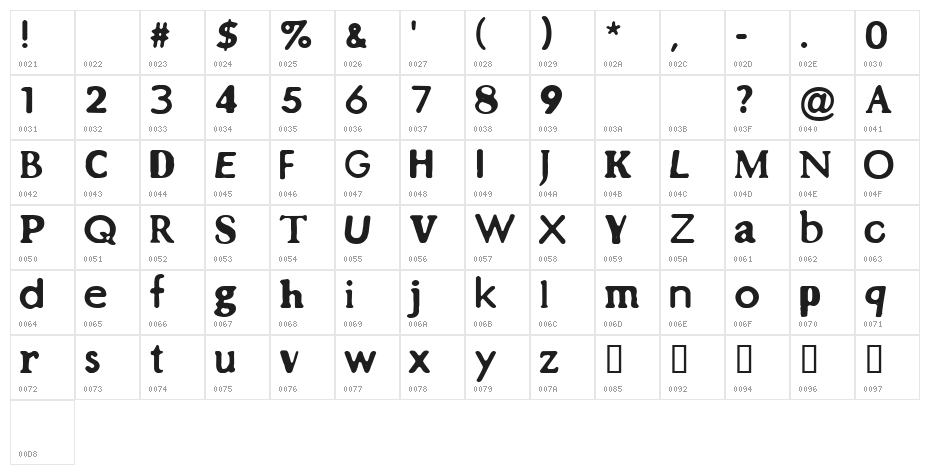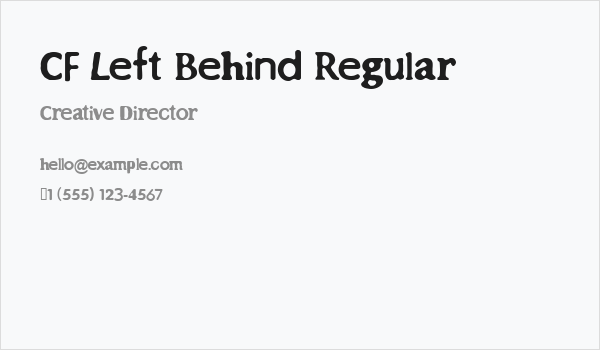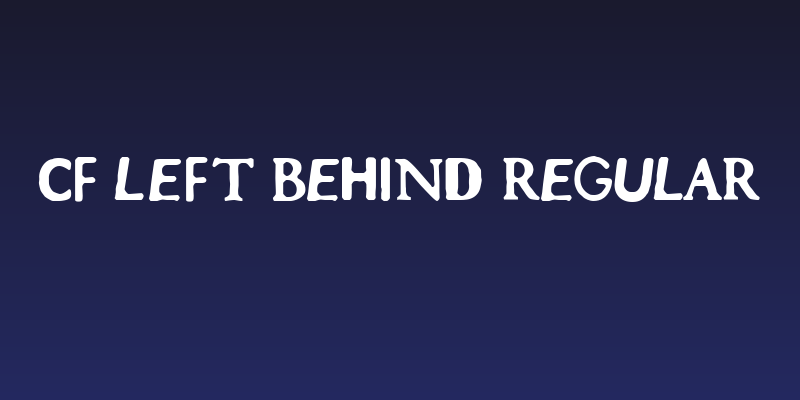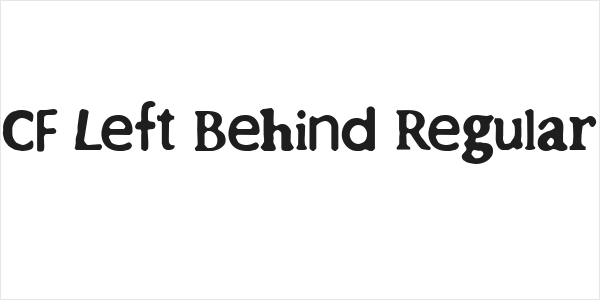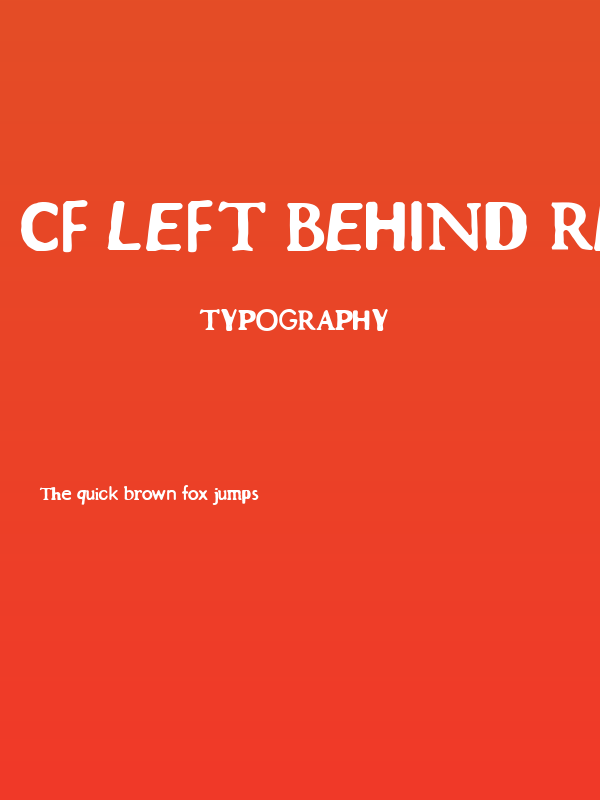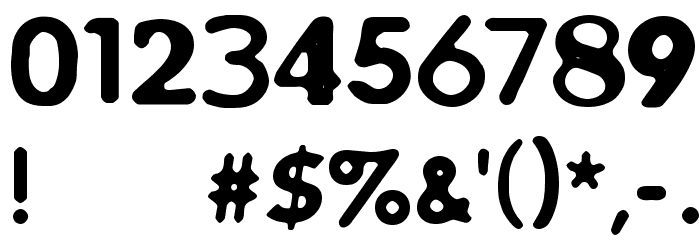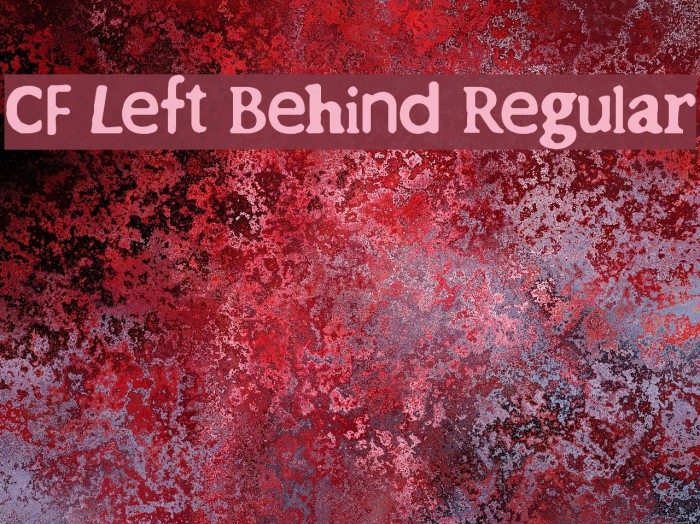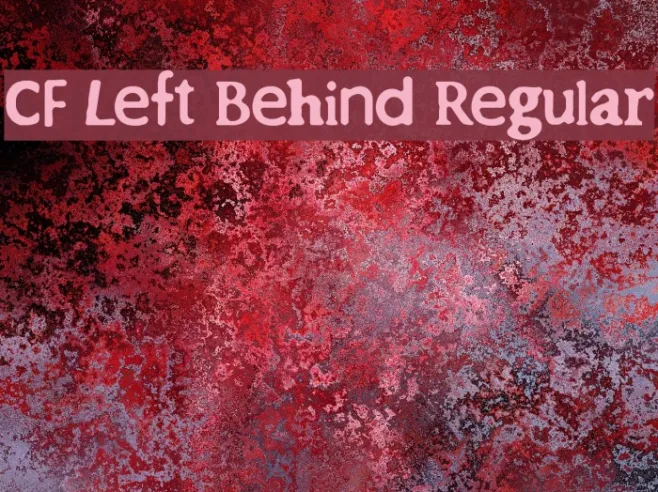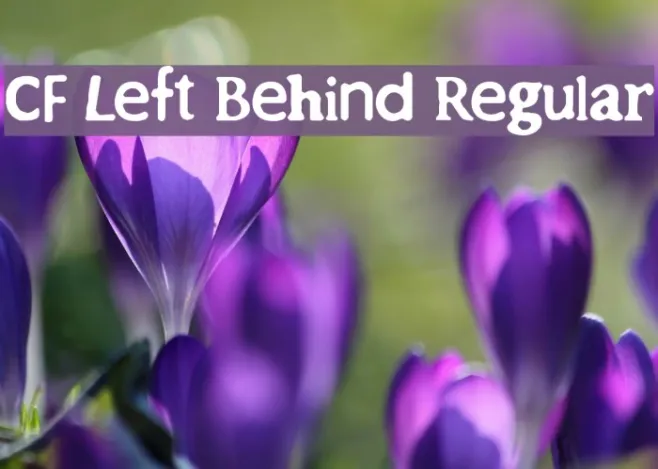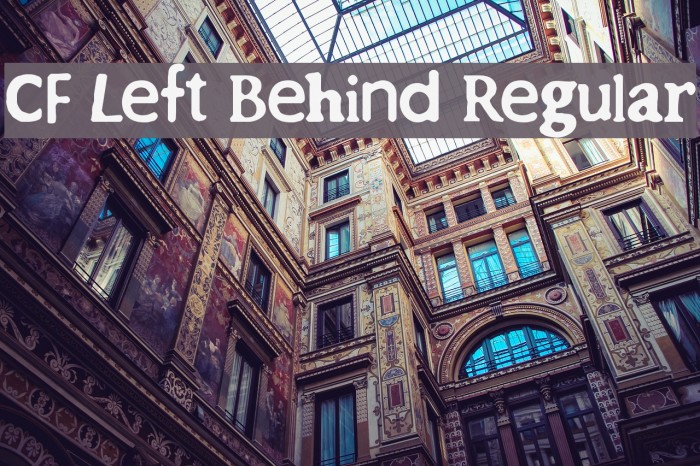
CF Left Behind Regular Font
CF Left Behind Regular Description
This font features a bold and playful design with a hand-drawn aesthetic. The letters have irregular shapes and varying stroke widths, giving them a unique and artistic appearance. The uppercase and lowercase letters maintain a consistent style, with some characters exhibiting exaggerated curves and angles. The numbers and special characters are equally distinctive, adding to the font's whimsical charm. This typeface is well-suited for creative projects that require a touch of personality and flair.
| Proposed Projects | Ideal for children's books, creative posters, playful branding, and artistic invitations. |